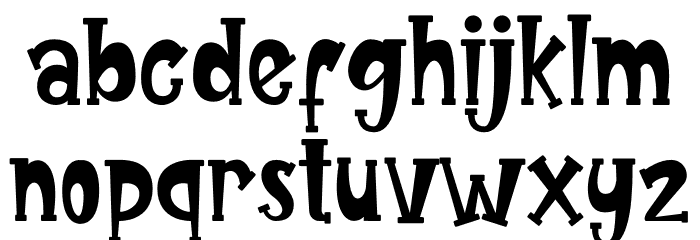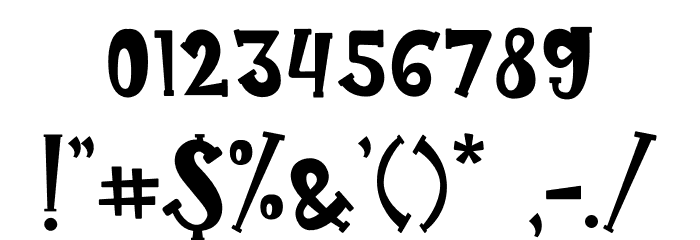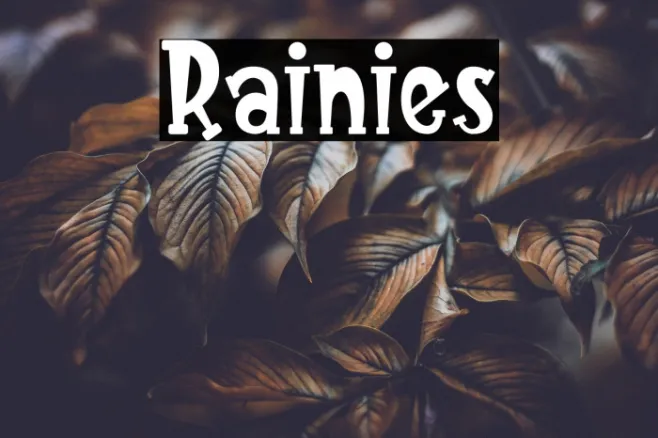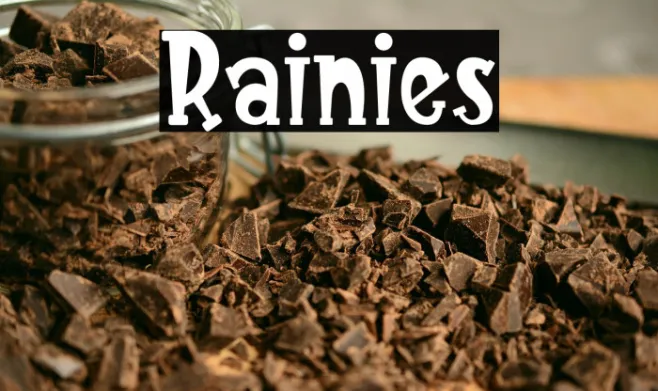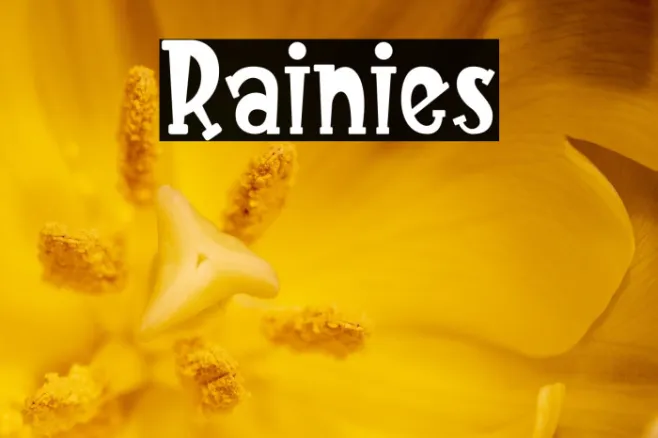
Rainies Font
This font features a playful and whimsical style with exaggerated serifs and varying stroke widths. The characters have a hand-drawn appearance, giving them a unique and artistic flair. The uppercase letters are bold and dynamic, while the lowercase letters maintain a consistent yet quirky design. The numbers and special characters follow the same playful aesthetic, making this font suitable for creative and informal projects. Its distinct style is eye-catching and memorable, perfect for adding a touch of fun to any design.
A playful, whimsical font with exaggerated serifs and a hand-drawn look.
- Proposed Projects: Ideal for children's books, playful branding, greeting cards, and creative posters.
- Overall Style: Whimsical, Artistic